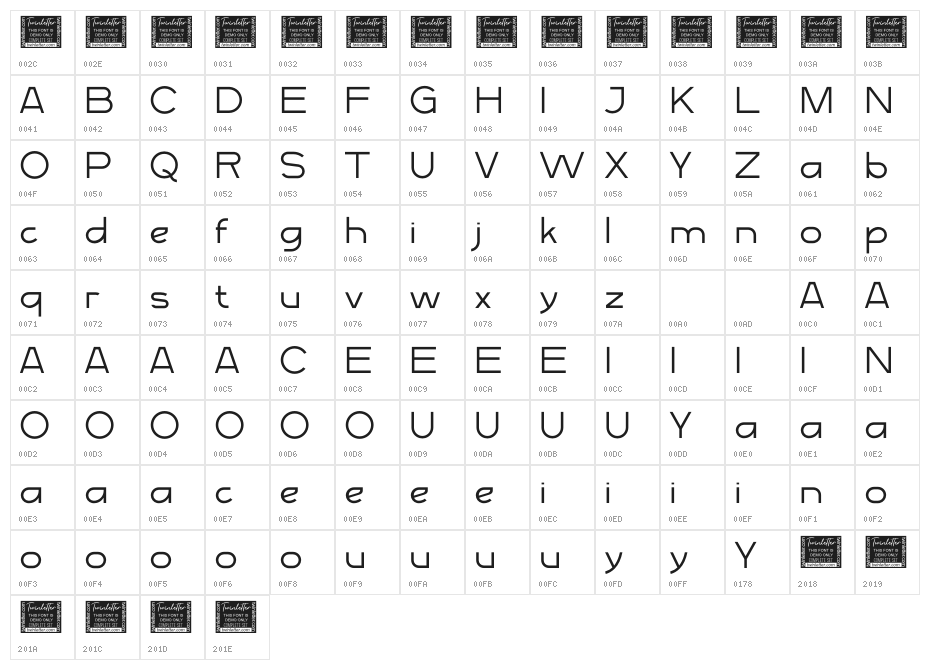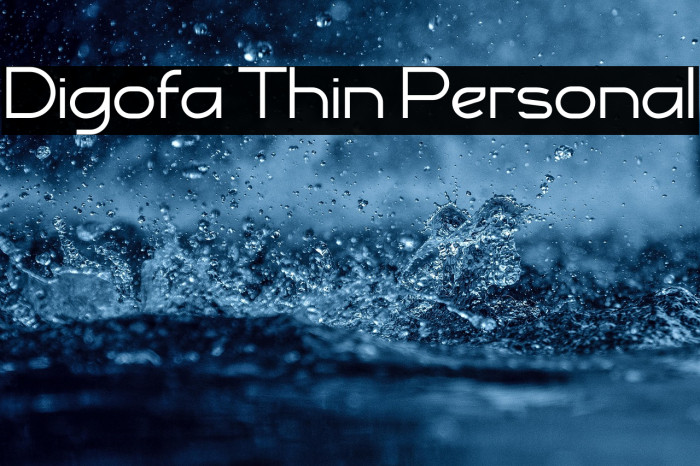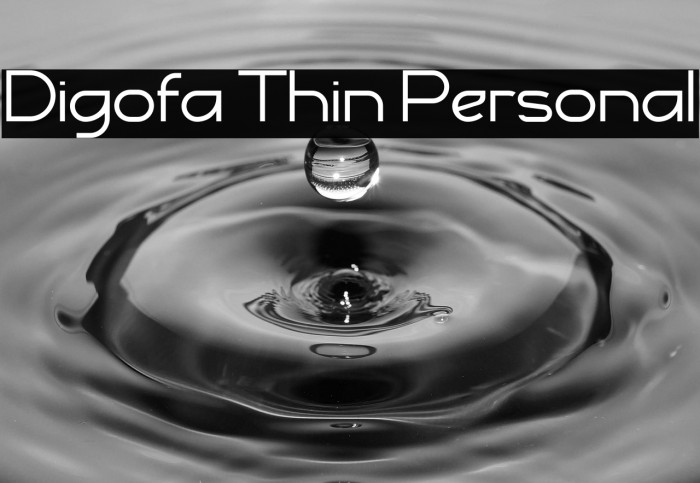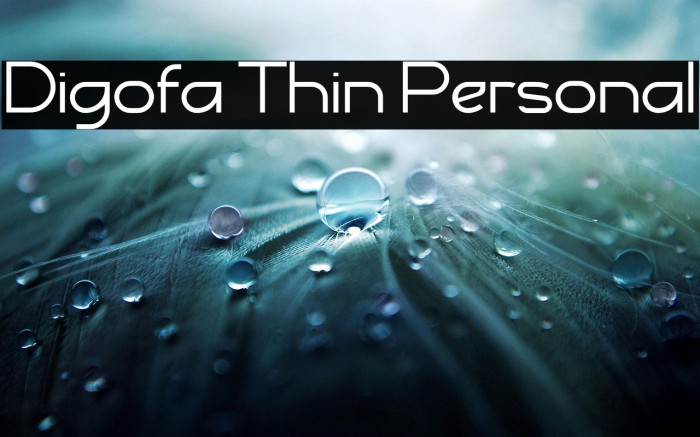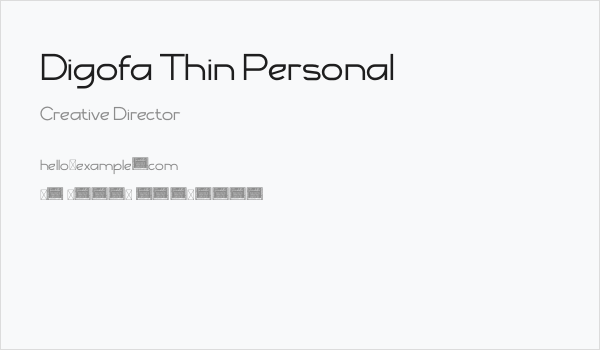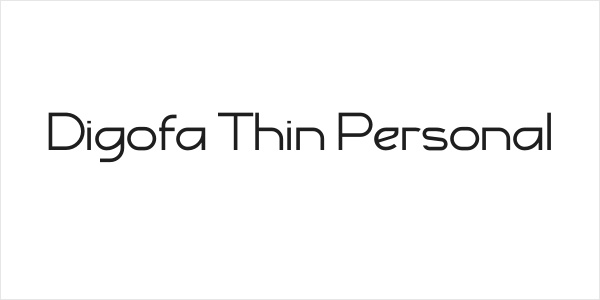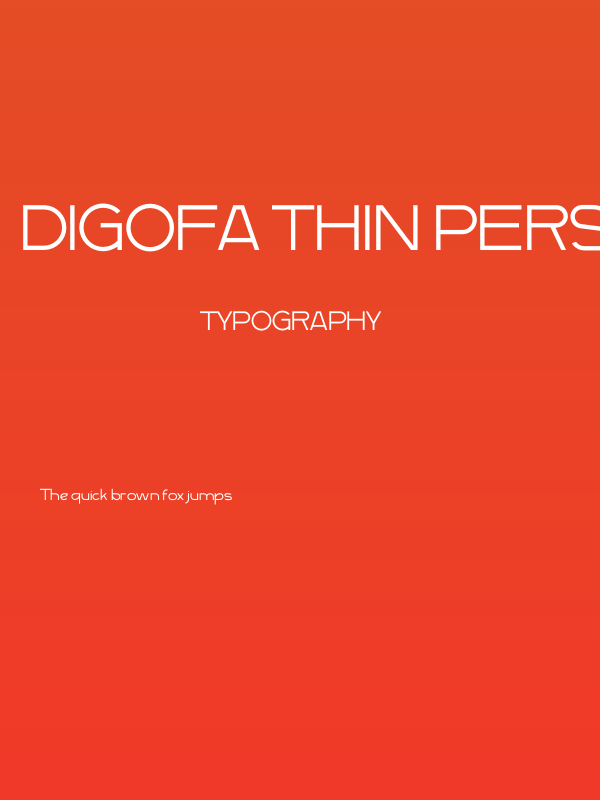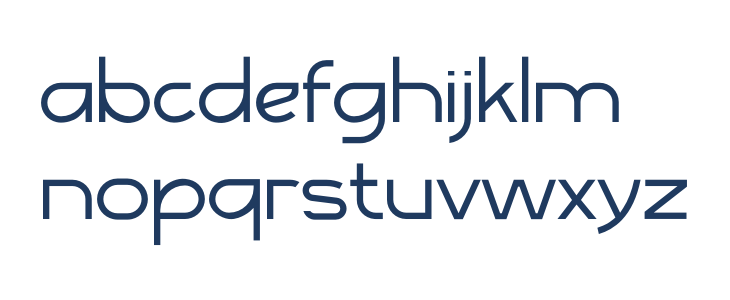
Digofa Thin Personal Font
Digofa Thin Personal Description
This font features a sleek, modern design with clean lines and a geometric structure. The uppercase letters are uniform in height, creating a balanced and harmonious appearance. The lowercase letters maintain a consistent style, with rounded edges that add a touch of softness to the overall look. The numerals are clear and easy to read, making them suitable for various applications. Special characters are included, maintaining the same geometric and modern aesthetic. This font is ideal for projects that require a contemporary and professional look.
Proposed ProjectsIdeal for branding, advertising, digital media, and editorial design.